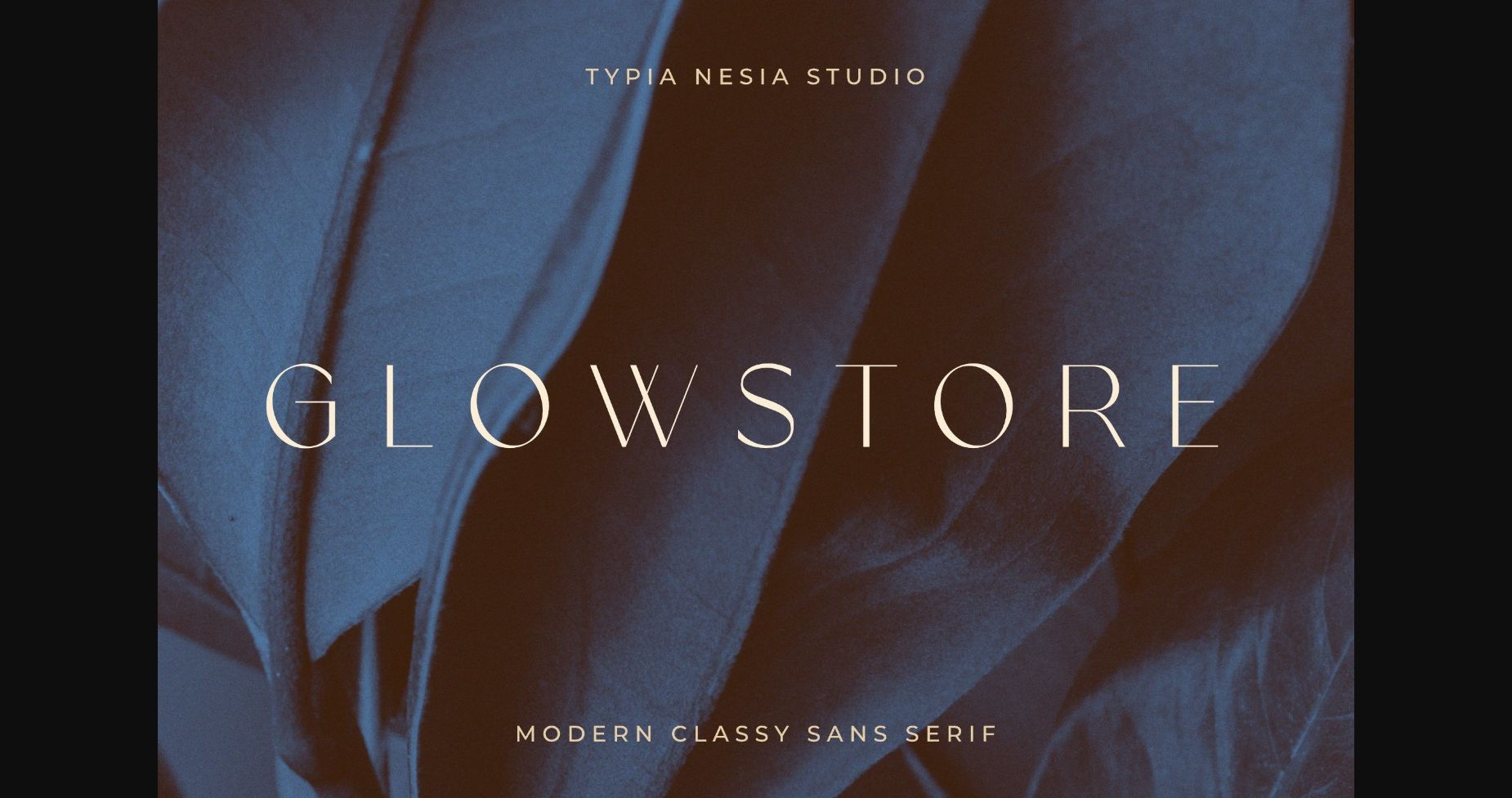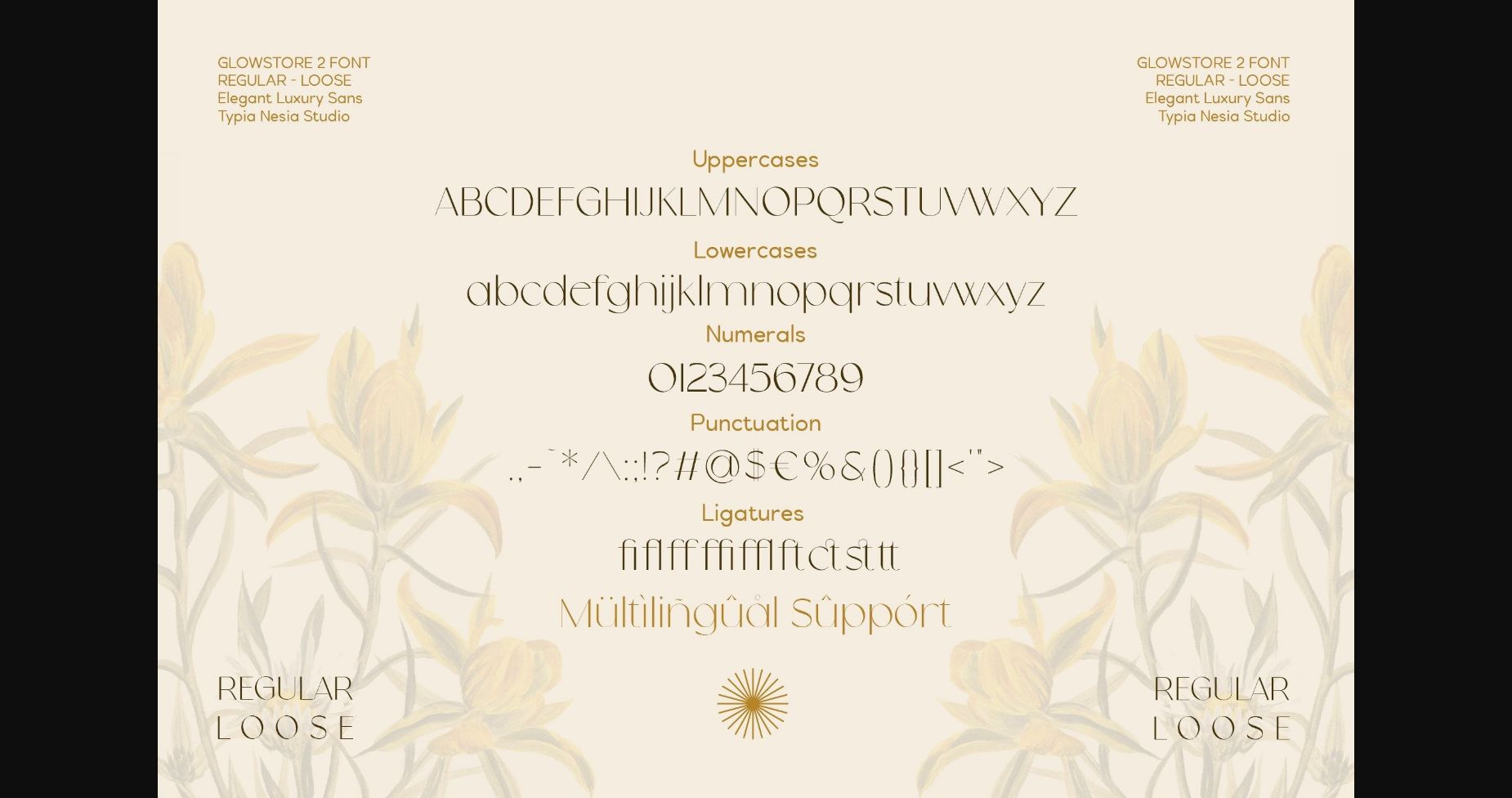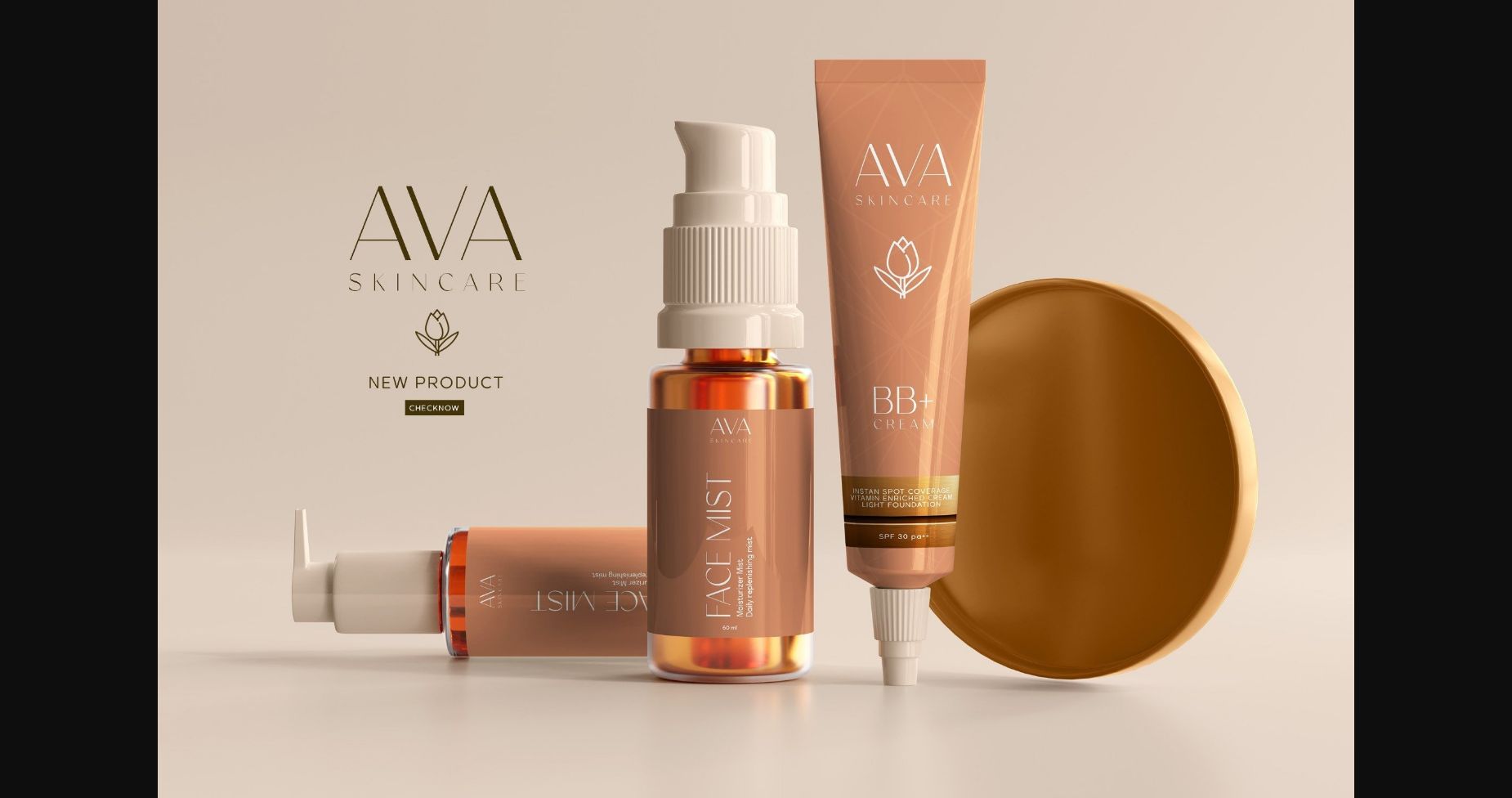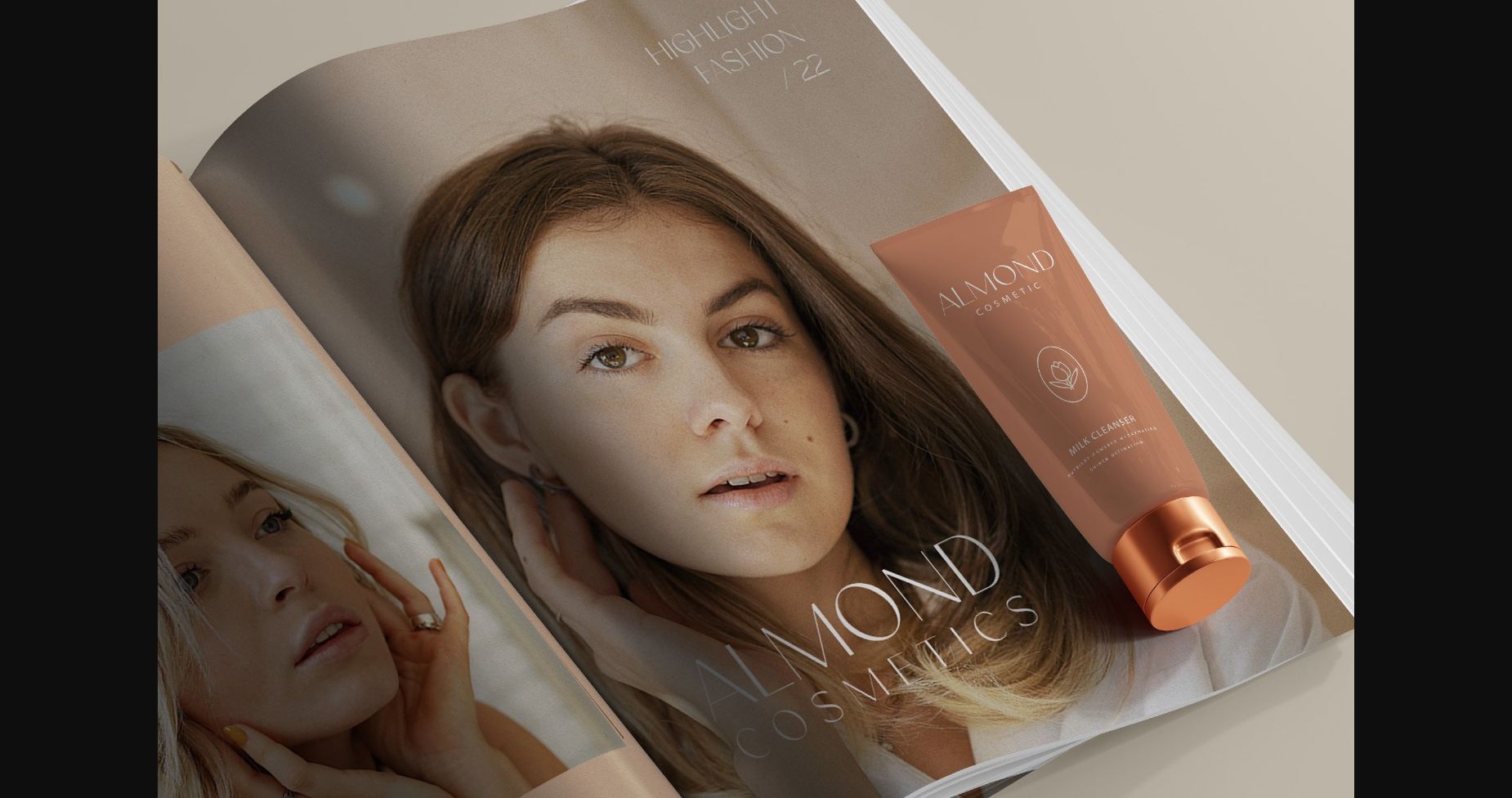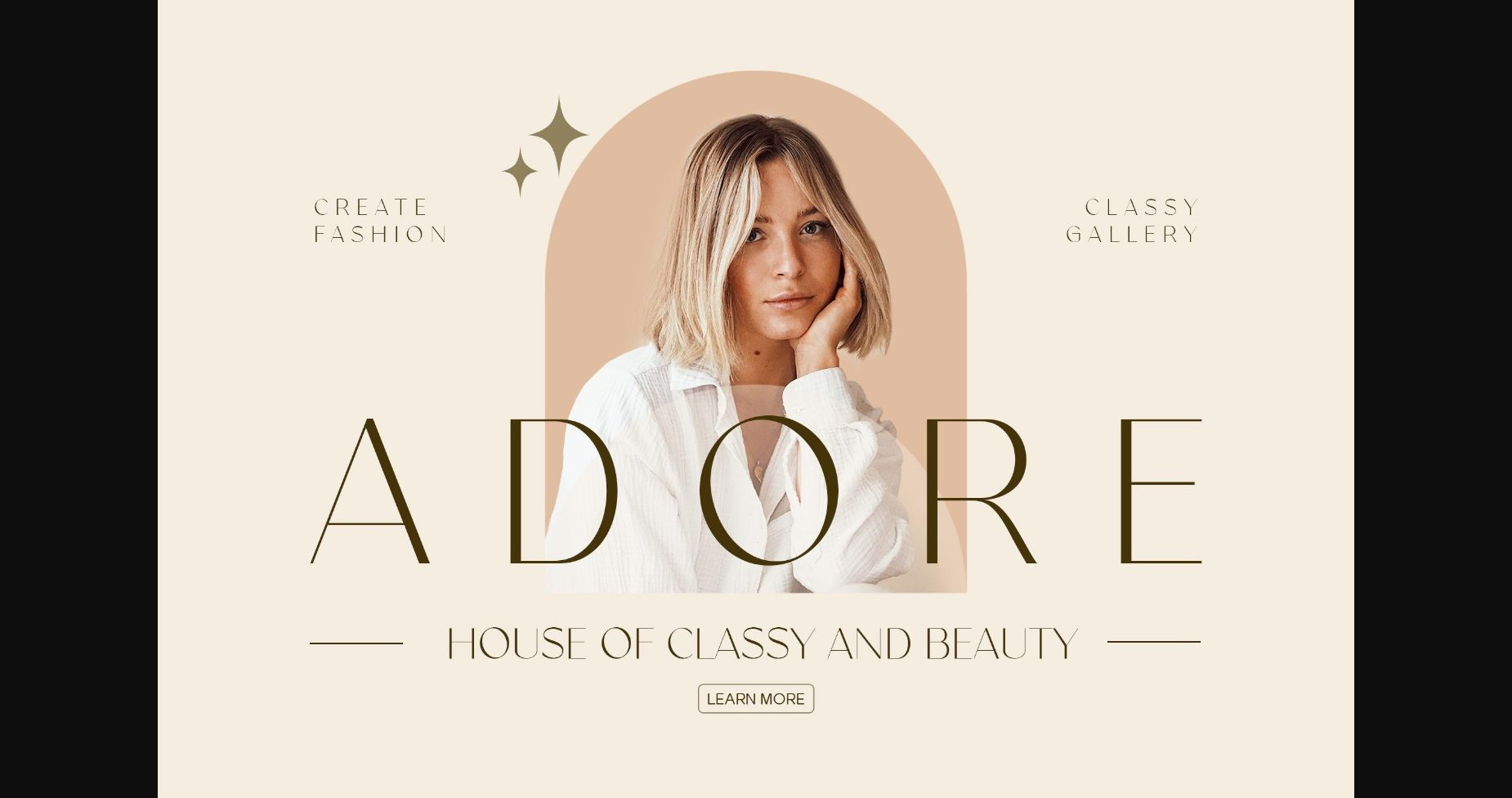
Glowstore Font
About Glowstore Font
Glowstore is an elegant and modern sans serif font. This minimalist and clean vibe can easily apply to your favorite designs such as book covers, magazines, social media posts, invitations, and so much more!